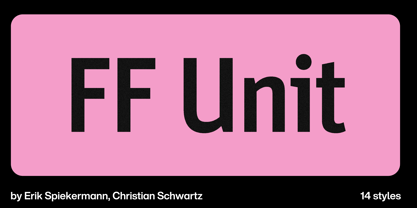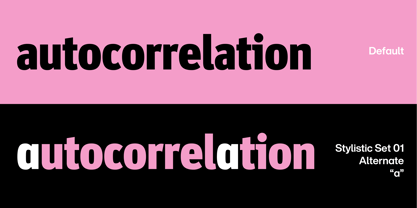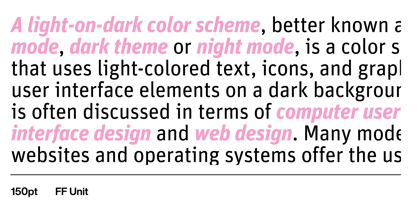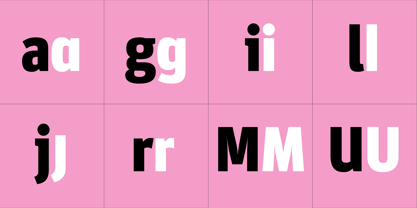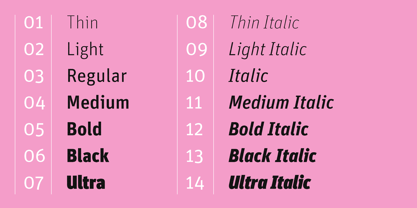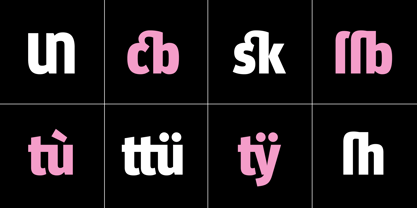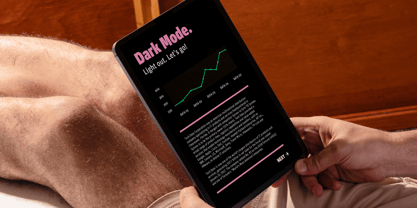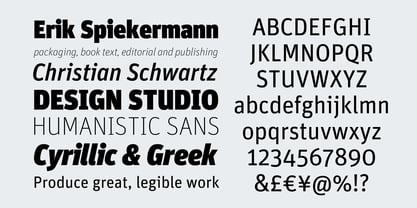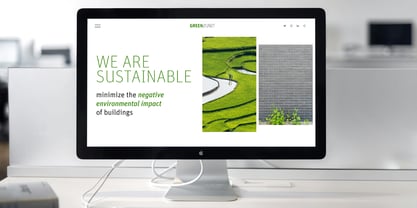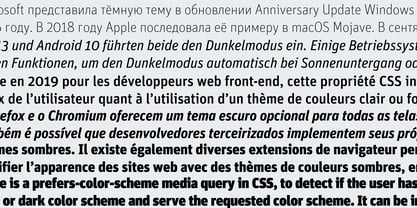
FF Unit®
by FontFont
The FF Unit Font Family was designed by Christian Schwartz, Erik Spiekermann and published by FontFont. FF Unit contains 8 styles and family package options.
German type designer Erik Spiekermann and American type designer Christian Schwartz created this sans FontFont between 2003 and 2011. The family has 14 weights, ranging from Thin to Ultra (including italics) and is ideally suited for advertising and packaging, book text, editorial and publishing, logo, branding and creative industries, small text, wayfinding and signage as well as web and screen design. FF Unit provides advanced typographical support with features such as ligatures, small capitals, alternate characters, case-sensitive forms, fractions, and super- and subscript characters. It comes with a complete range of figure set options – oldstyle and lining figures, each in tabular and proportional widths. As well as Latin-based languages, the typeface family also supports the Cyrillic and Greek writing systems. In 2004, FF Unit received the TDC2 award. This FontFont is a member of the FF Unit super family, which also includes FF Unit Rounded and FF Unit Slab.
Designers: Christian Schwartz, Erik Spiekermann